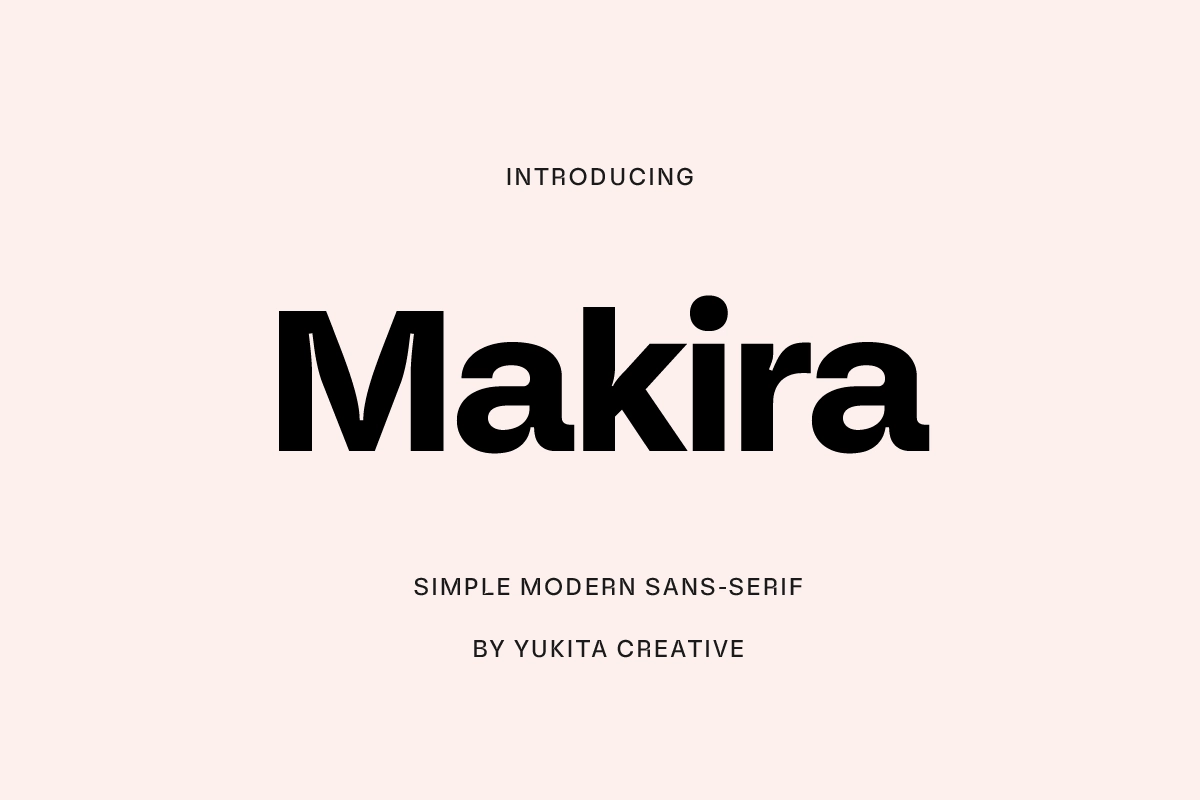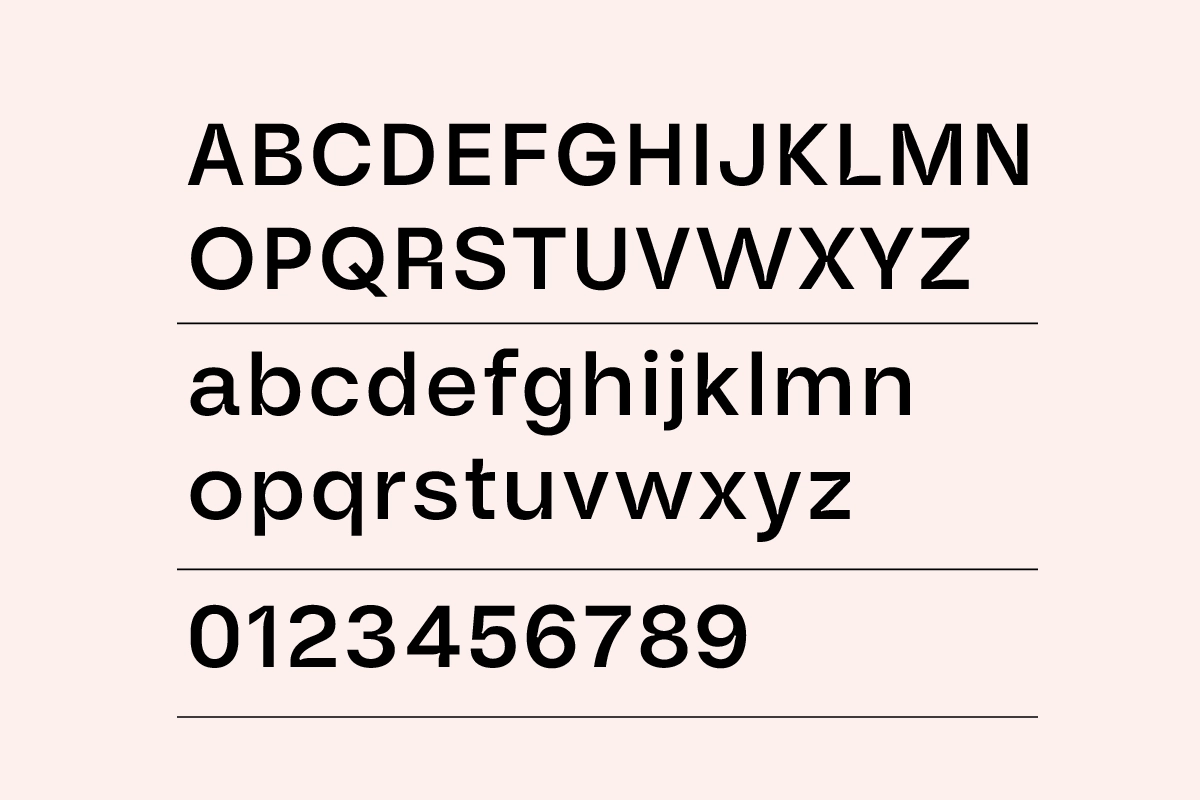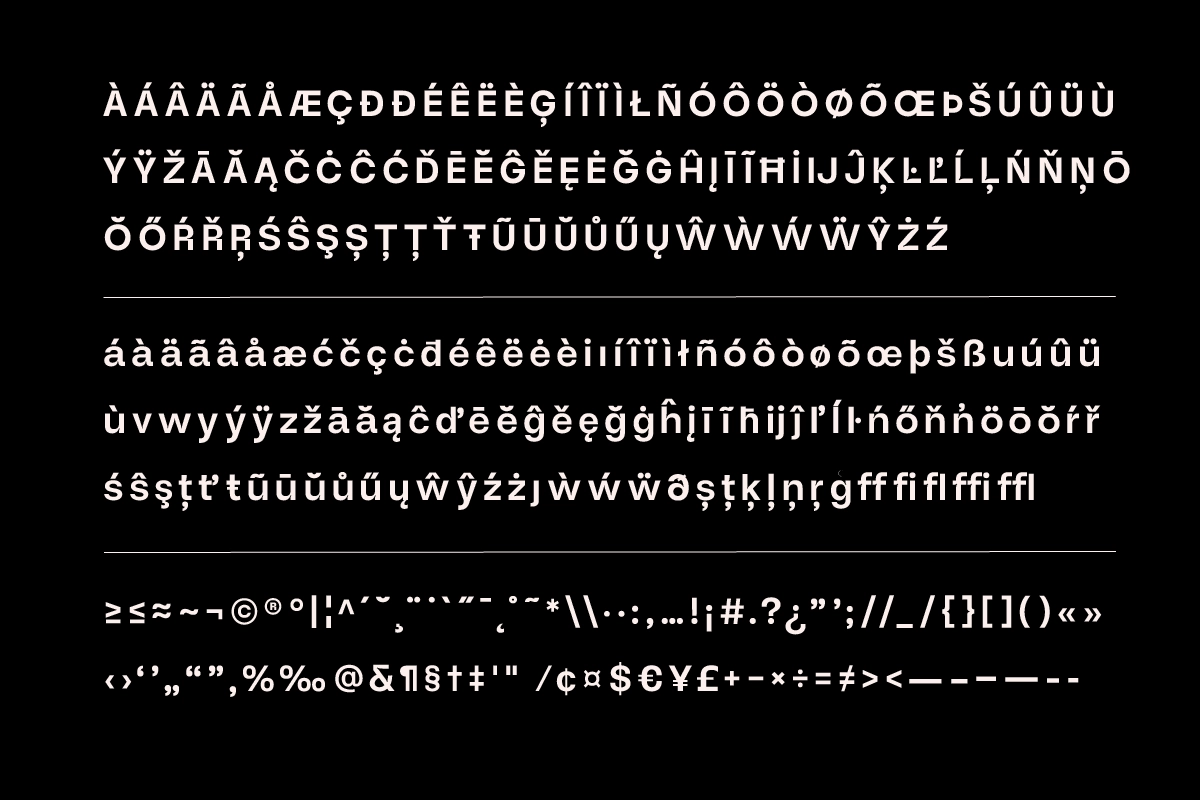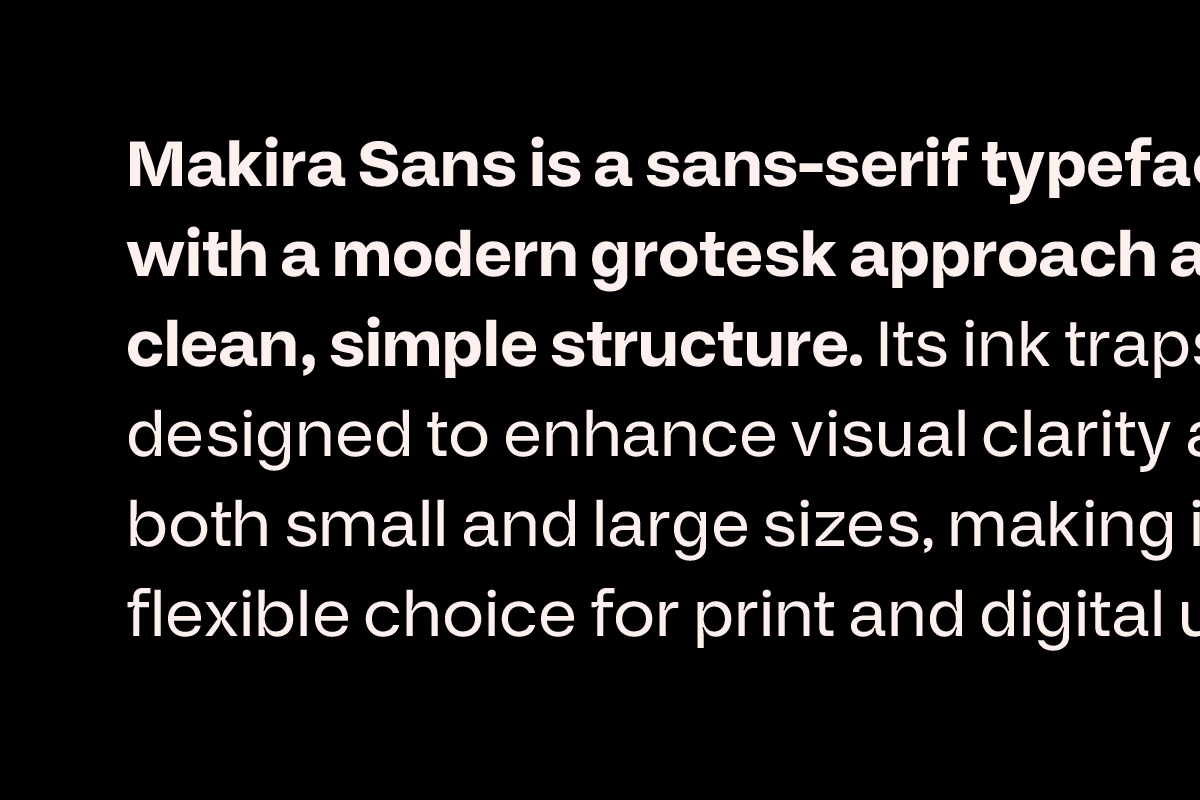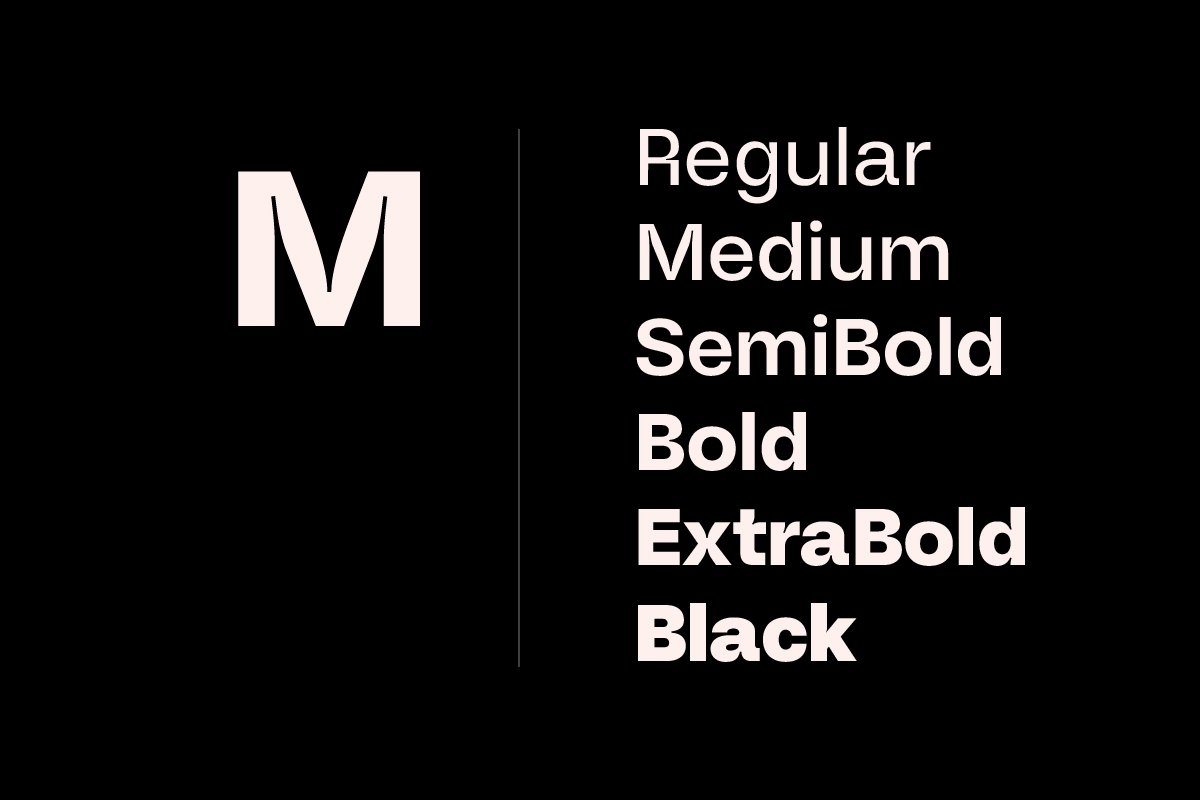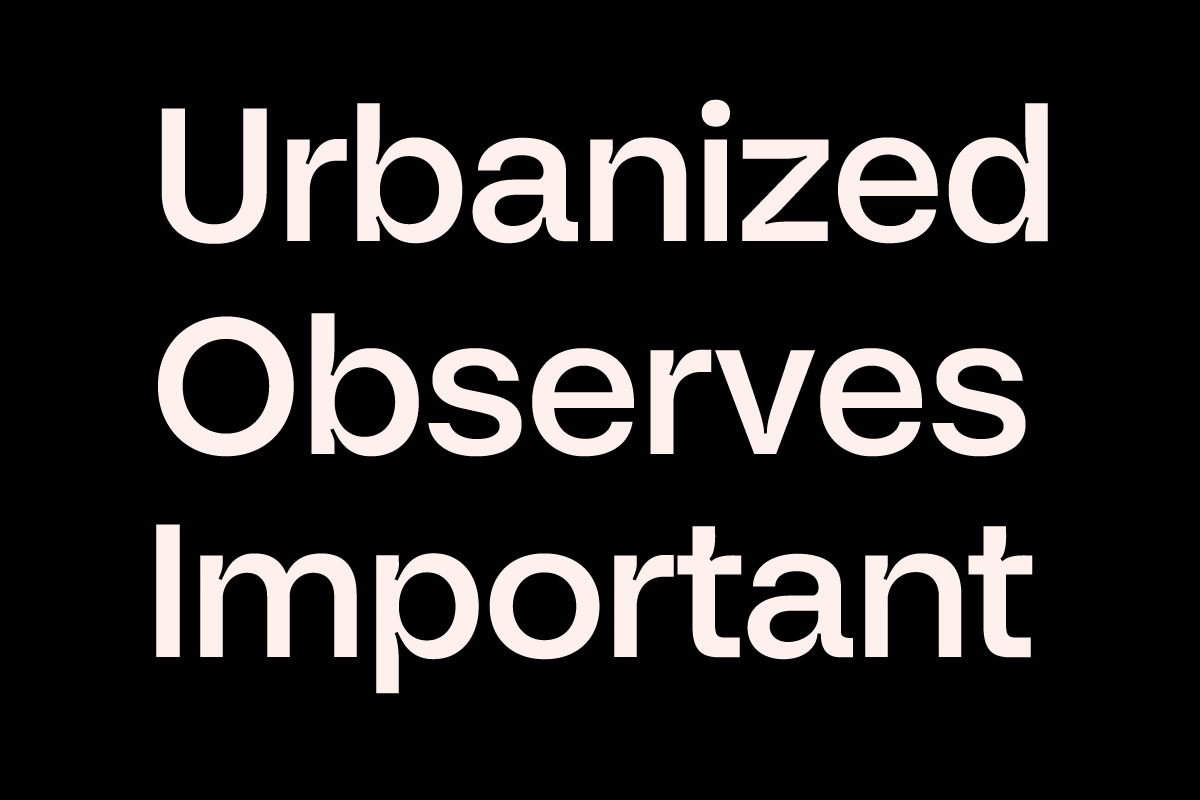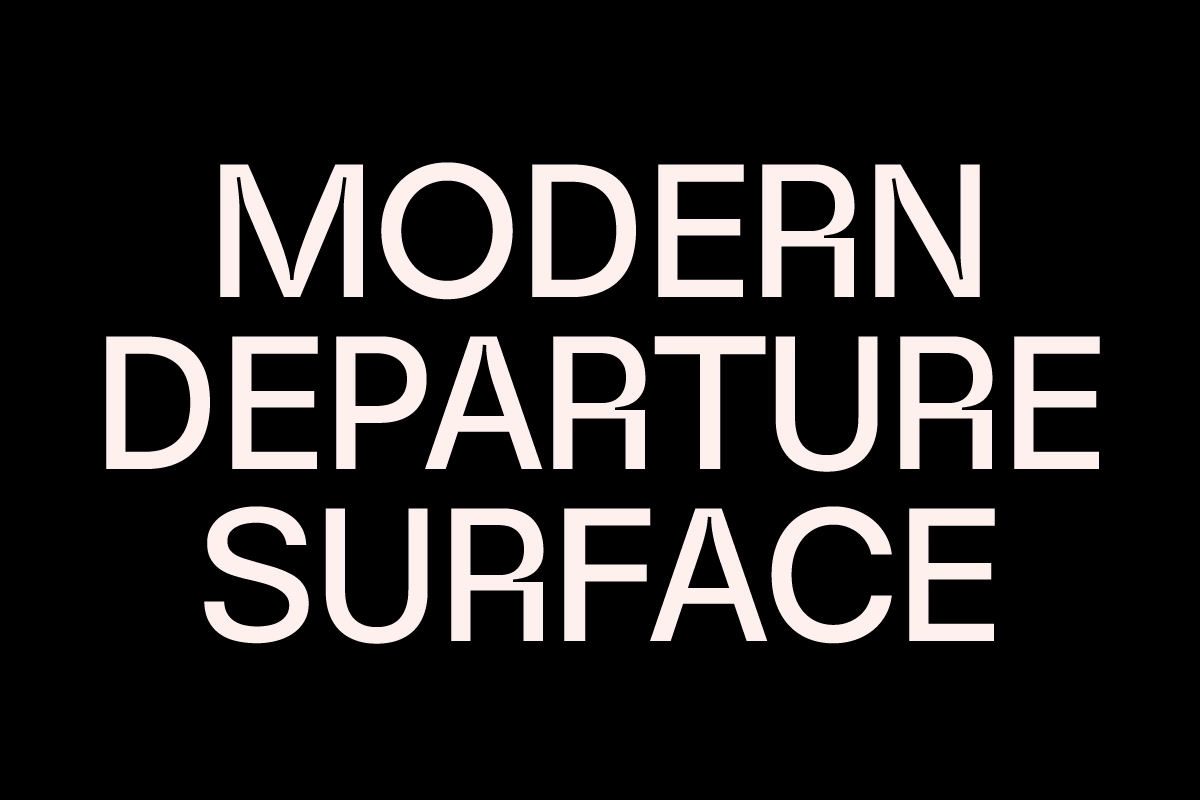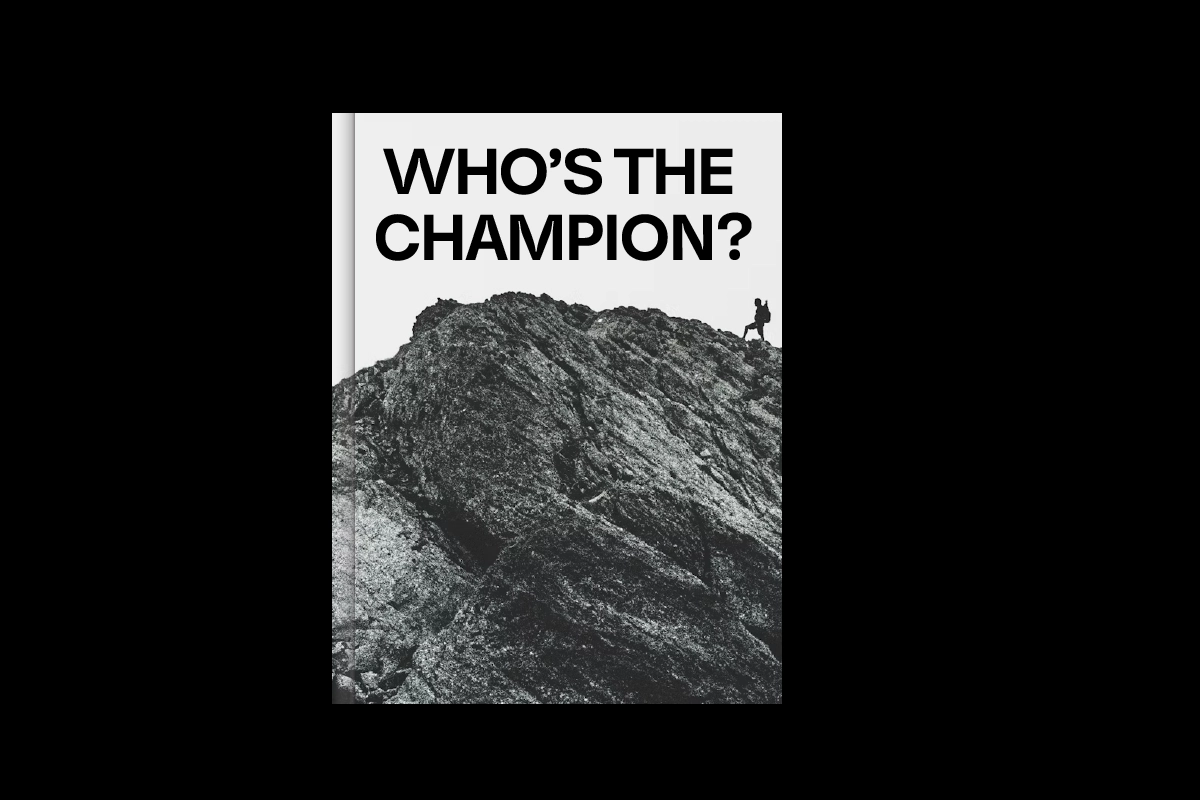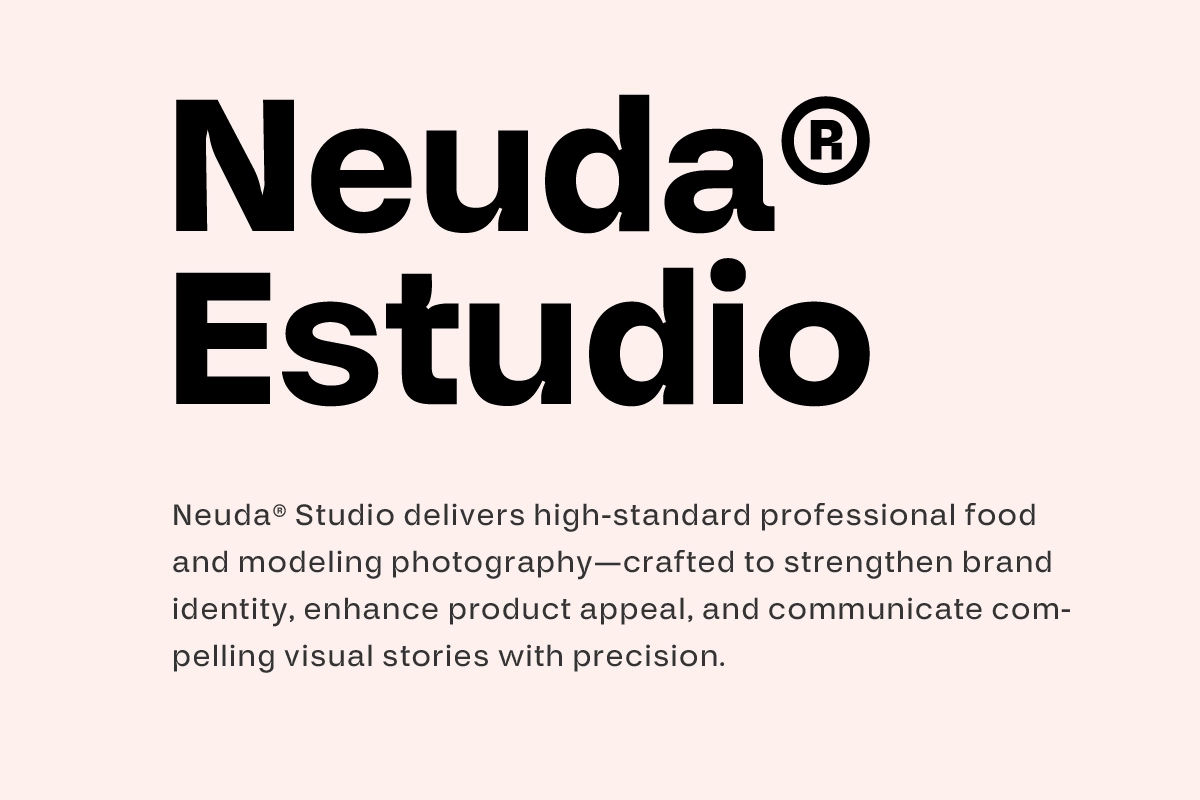
Makira – Modern Sans Serif Font Family
This grotesk sans-serif is sharp, controlled, and easy to read at a glance. Its letterforms are clear and compact, with subtle ink traps that keep headlines, interfaces, and smaller text crisp without losing character.
Makira works well for branding systems, logos, editorial spreads, packaging, websites, app UI, advertising layouts, posters, lookbooks, social media graphics, and presentation design. It carries a polished, professional voice that fits fashion labels, studio portfolios, product launches, corporate identities, and digital content where clarity is part of the visual language.
• 6 weights: Regular, Medium, SemiBold, Bold, ExtraBold, Black